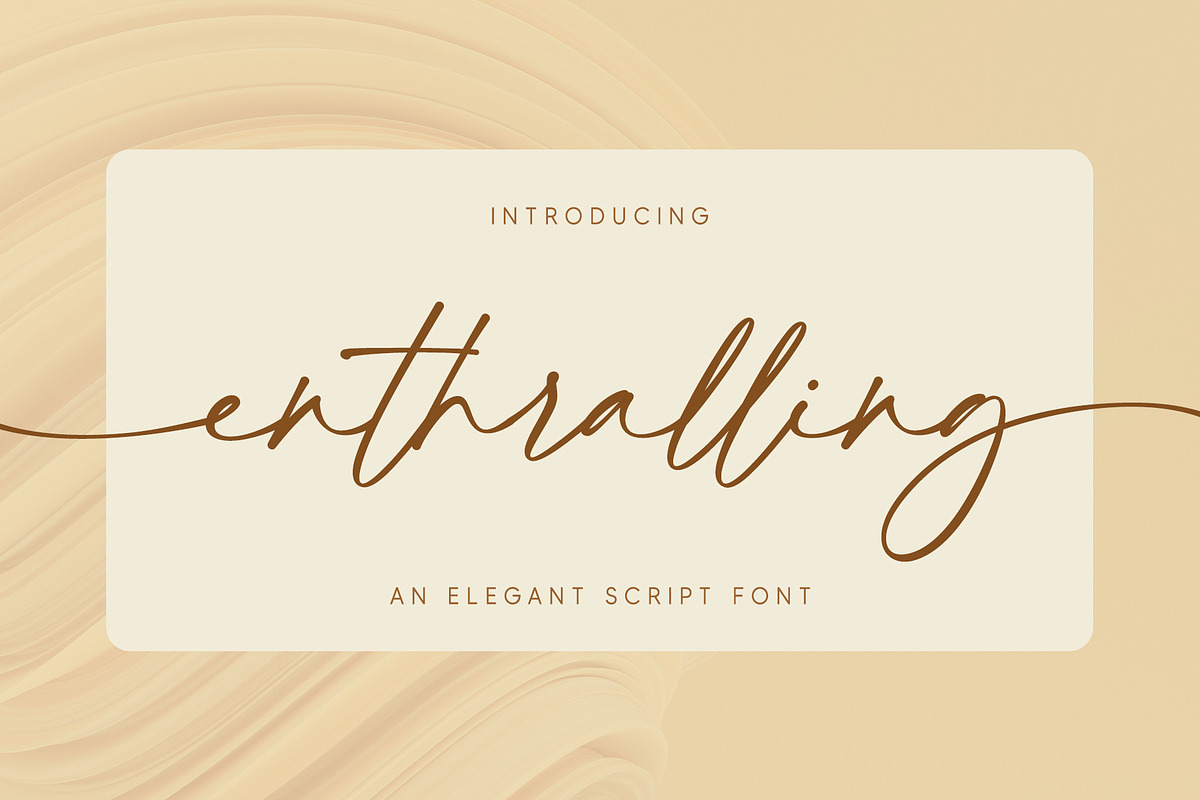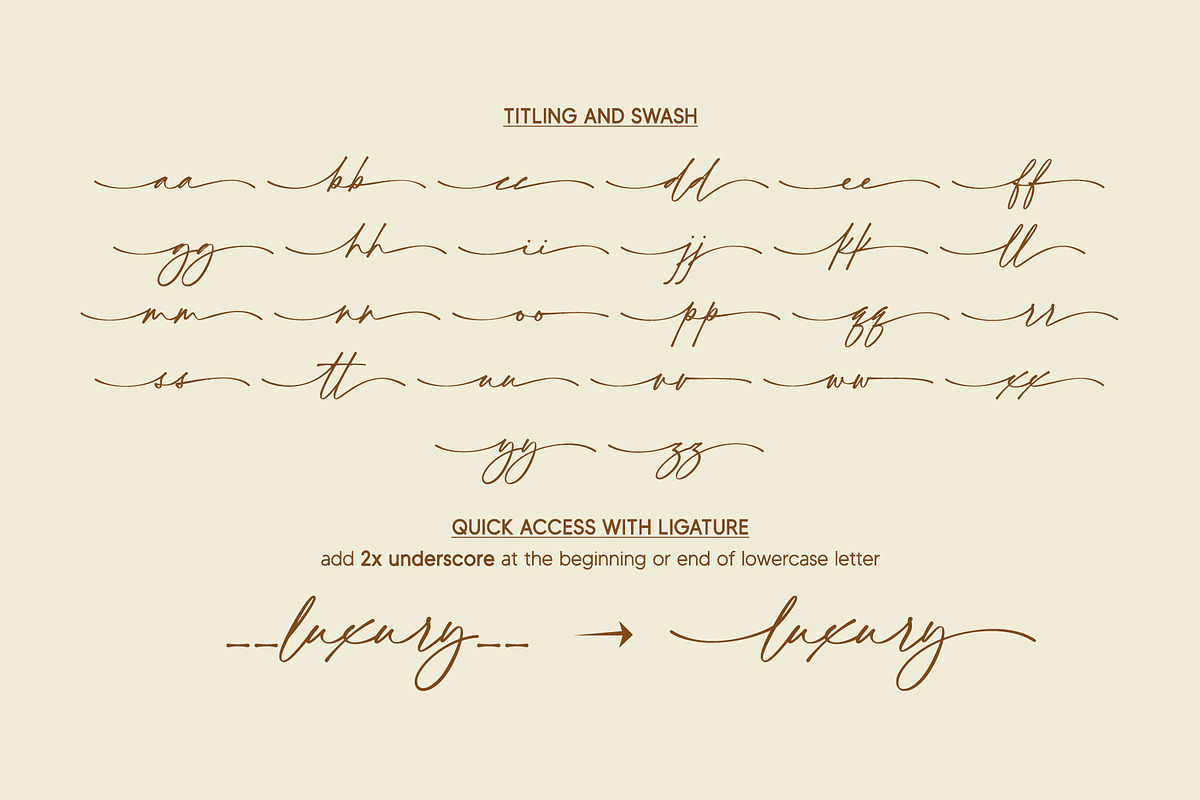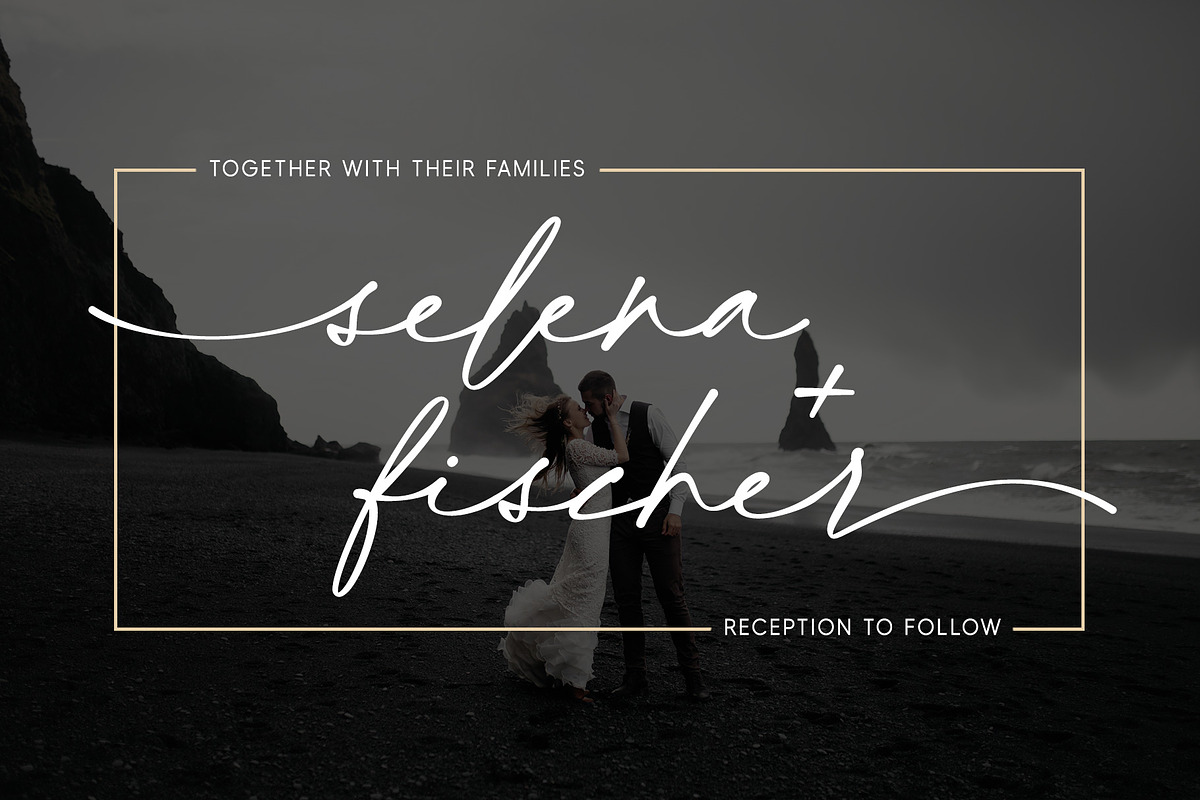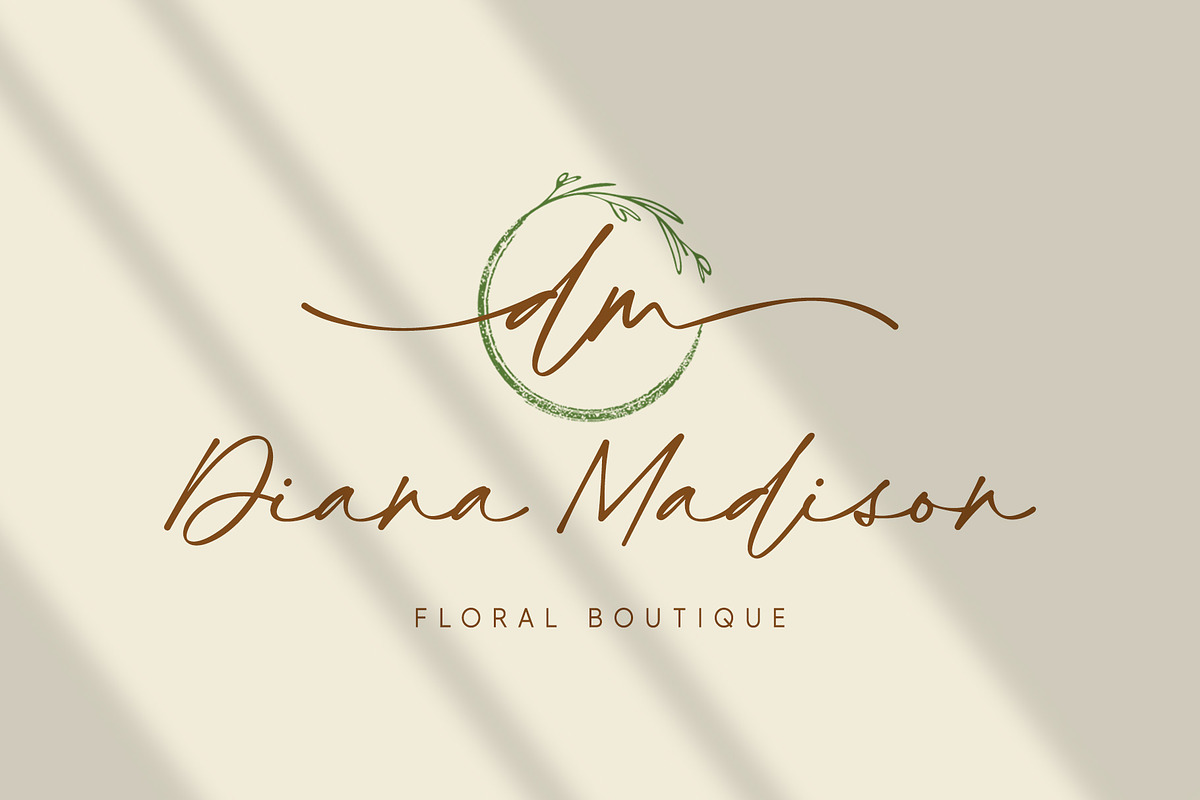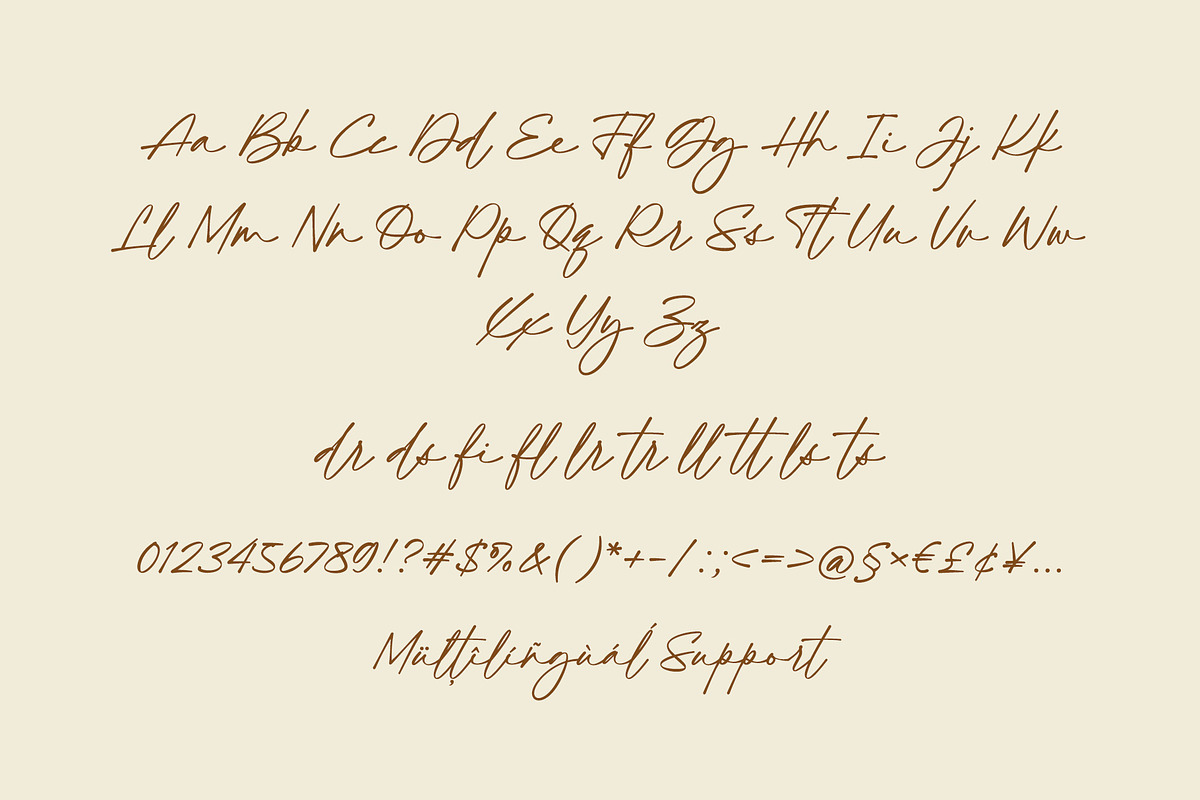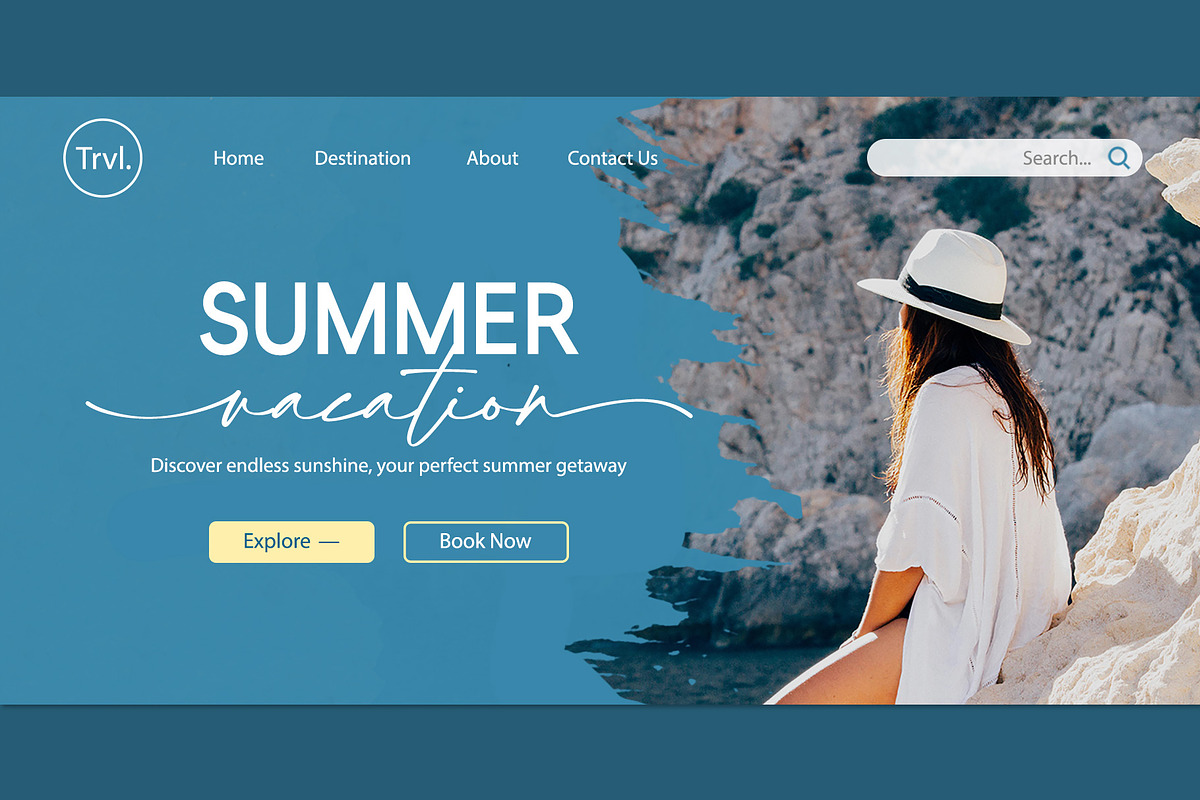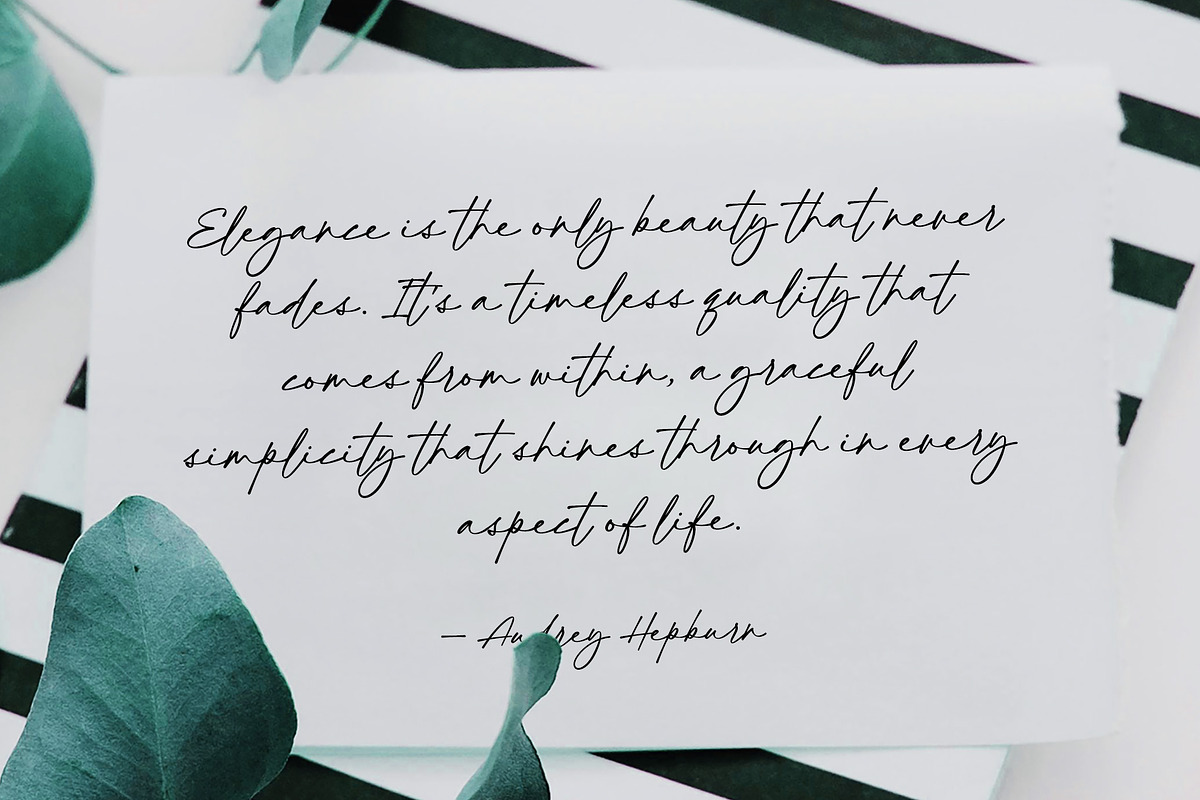
Enthralling | Elegant Script
Enthralling is a modern and elegant script font with a flowing handwritten style. Equipped with titling and swash features to enhance the look of every design, it was created to assist you in designing various projects such as logos, posters, wedding invitations, blog posts, social media, quotes, and much more!
- Titling
Quick access
- Titling: Add 2x underscore before lowercase a-z. Ex: __a
- Swash: Add 2x underscore after lowercase a-z. Ex: a__